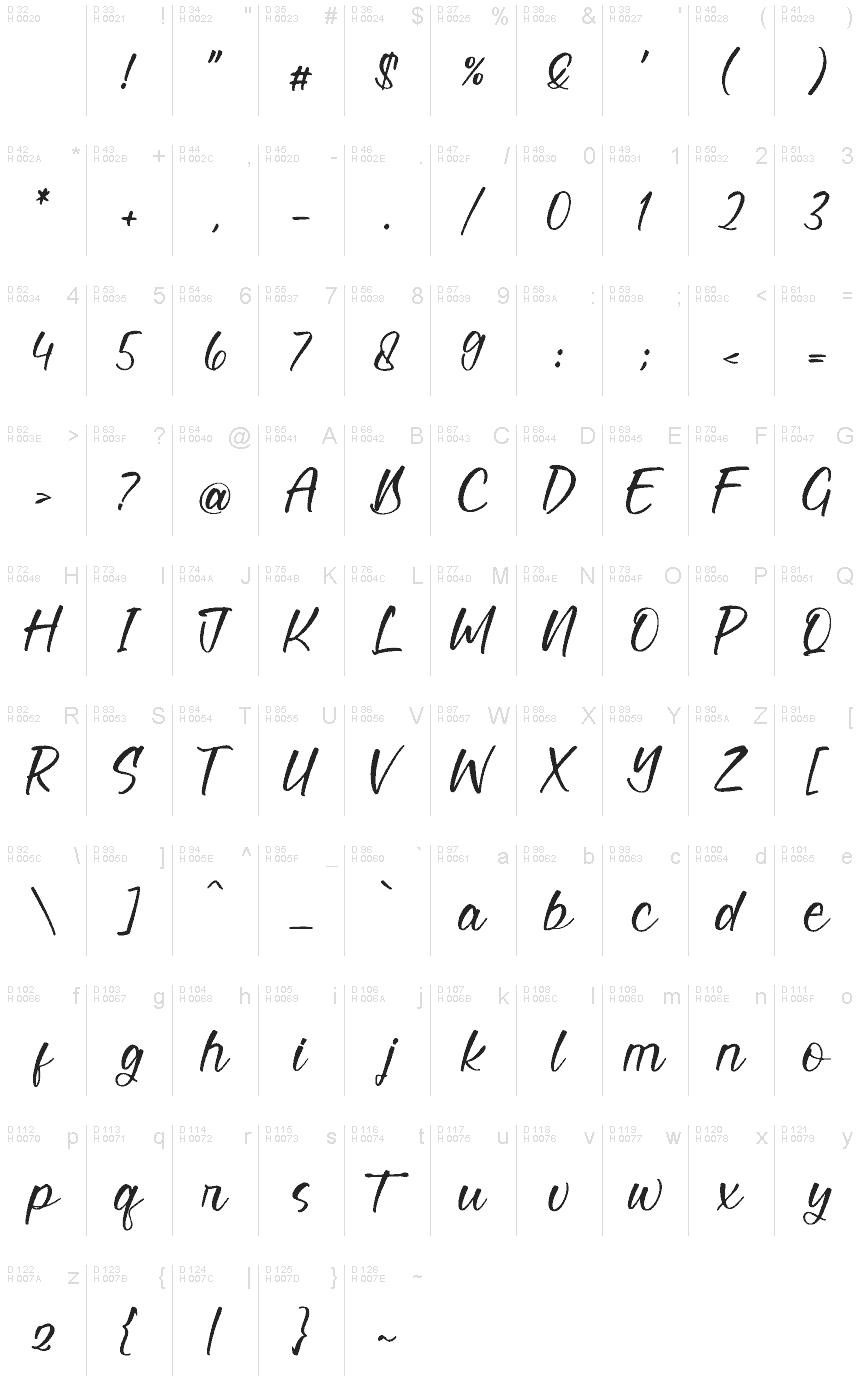
Marmhott Jengala
Marmhott Jengala is a handwritten font with calligraphic and artistic aesthetic features, which offer a unique balance to your design projects.
Designed by Perspectype Studio for Letterena, the font offers both elegance and a modern touch. Perfect for feminine logotypes, logos design, branding and packaging projects, brochures and book covers and branding projects, cards and stationery, and poster designs, Marmhott Jengala works great when paired with other fonts (Serif, Sans serif, Display etc.).